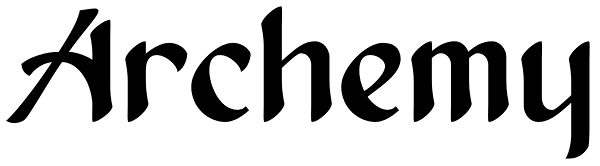
Archemy
Archemy is a restricted and obscure branch of Alchemy that deals specifically with the life, generation and transmutation of Metals. The Archemy font is primarily a magical and alchemical alphabet. It was created on initiative of Senior Zadith, in...